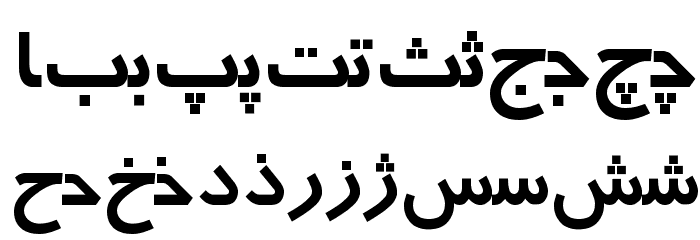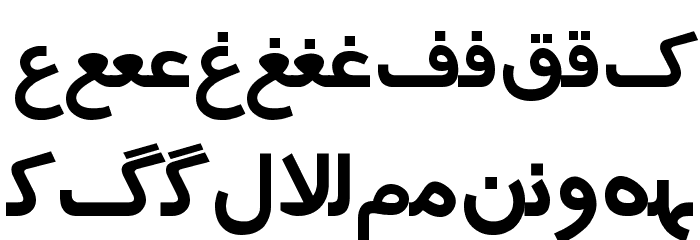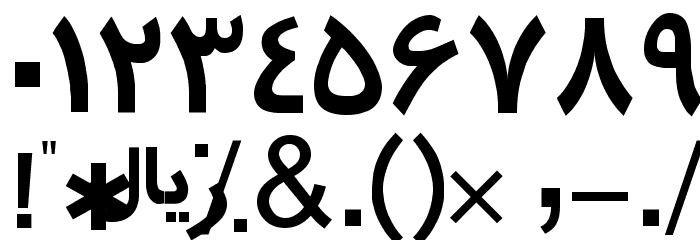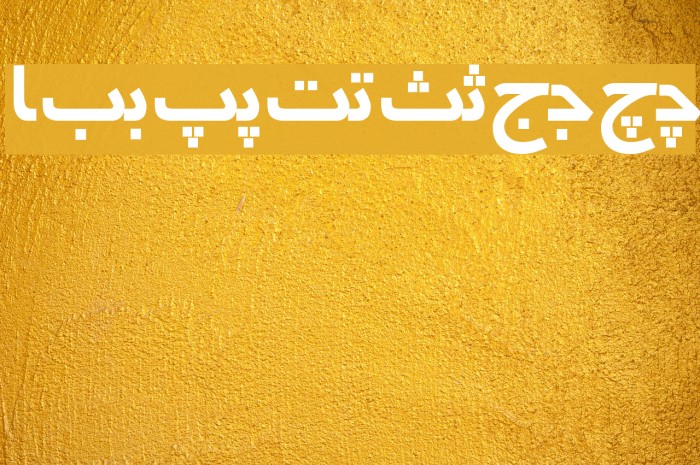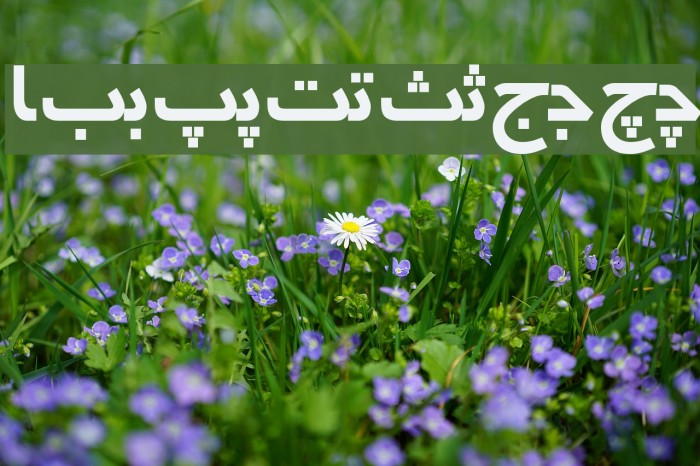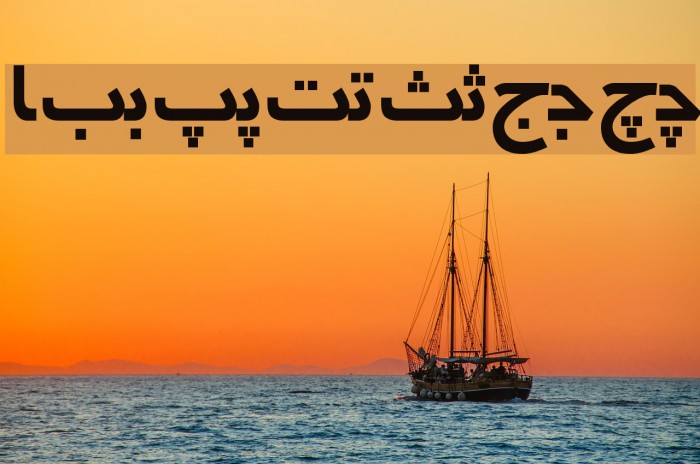
Irnafont_3 Font
This font features bold, geometric shapes with a strong presence, ideal for making a statement. The characters are well-defined with a modern aesthetic, showcasing a blend of traditional and contemporary styles. The strokes are consistent in thickness, providing a uniform appearance across all characters. The font includes a full set of Arabic letters, numerals, and a variety of punctuation marks and symbols, making it versatile for different uses. Its bold nature ensures high readability and impact, suitable for both digital and print media.
A bold, modern Arabic font with geometric shapes and consistent stroke thickness.
- Proposed Projects: Ideal for branding, advertising, headlines, and any project requiring a strong visual impact.
- Use Case: Headlines, Logos, Advertising